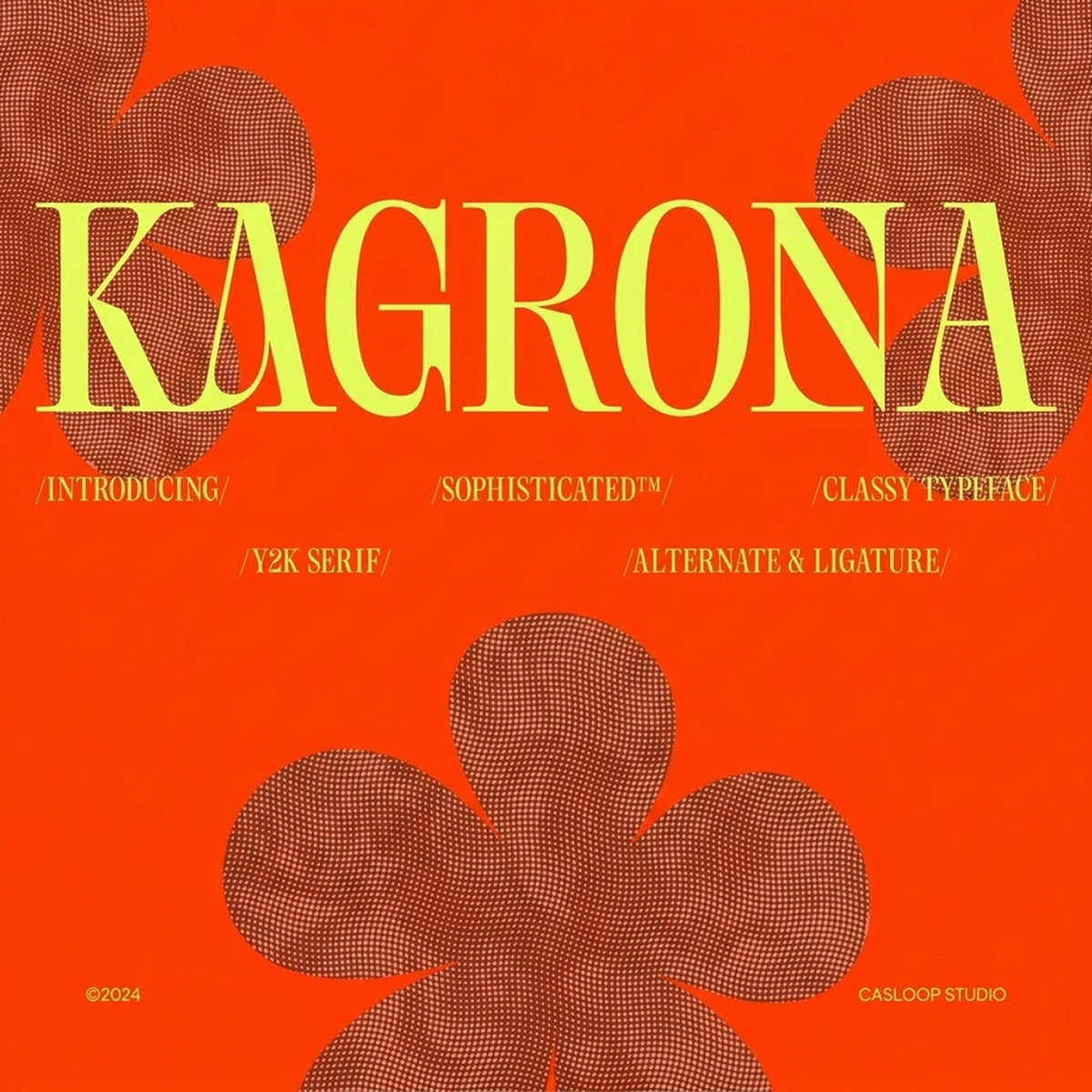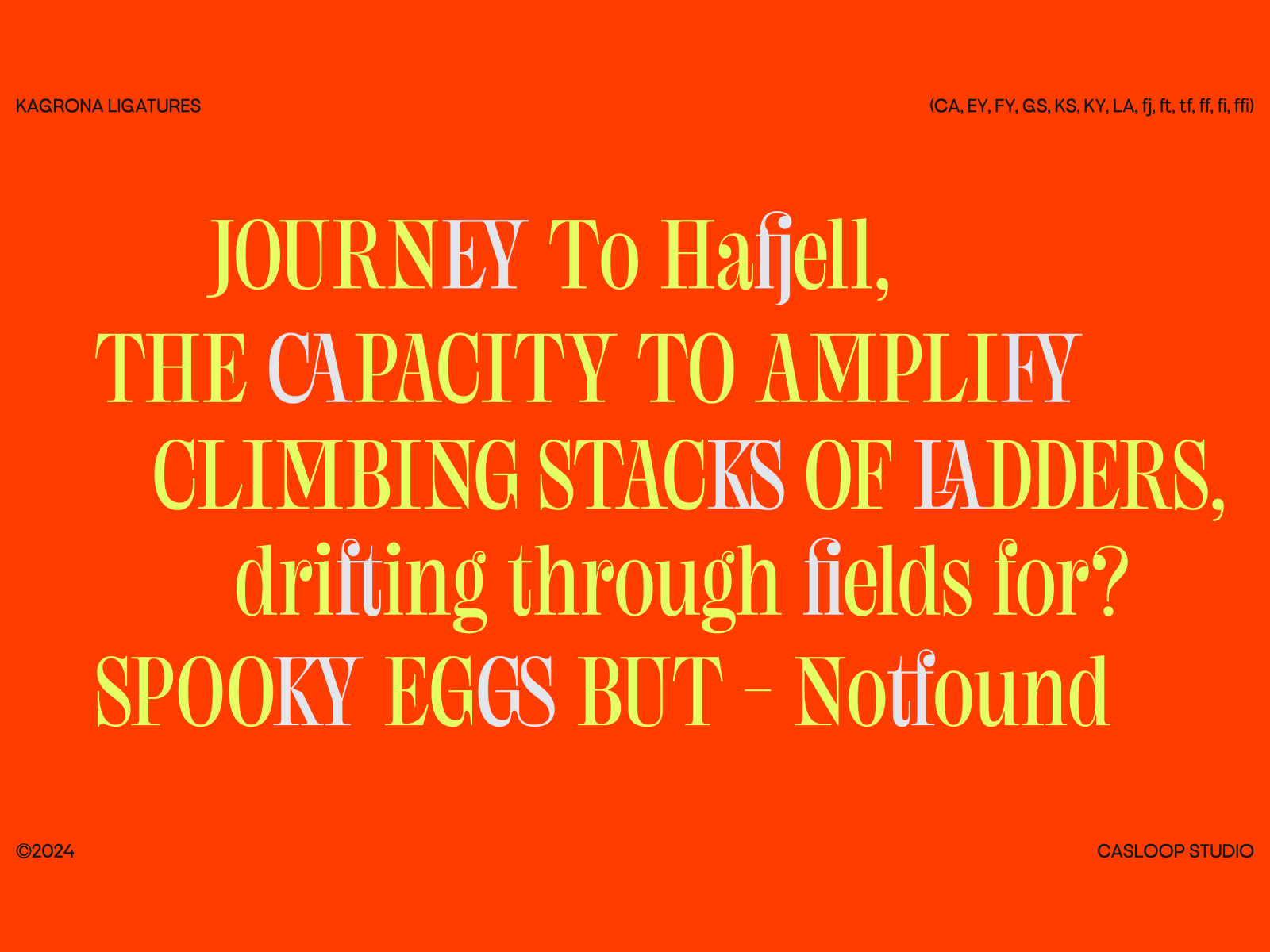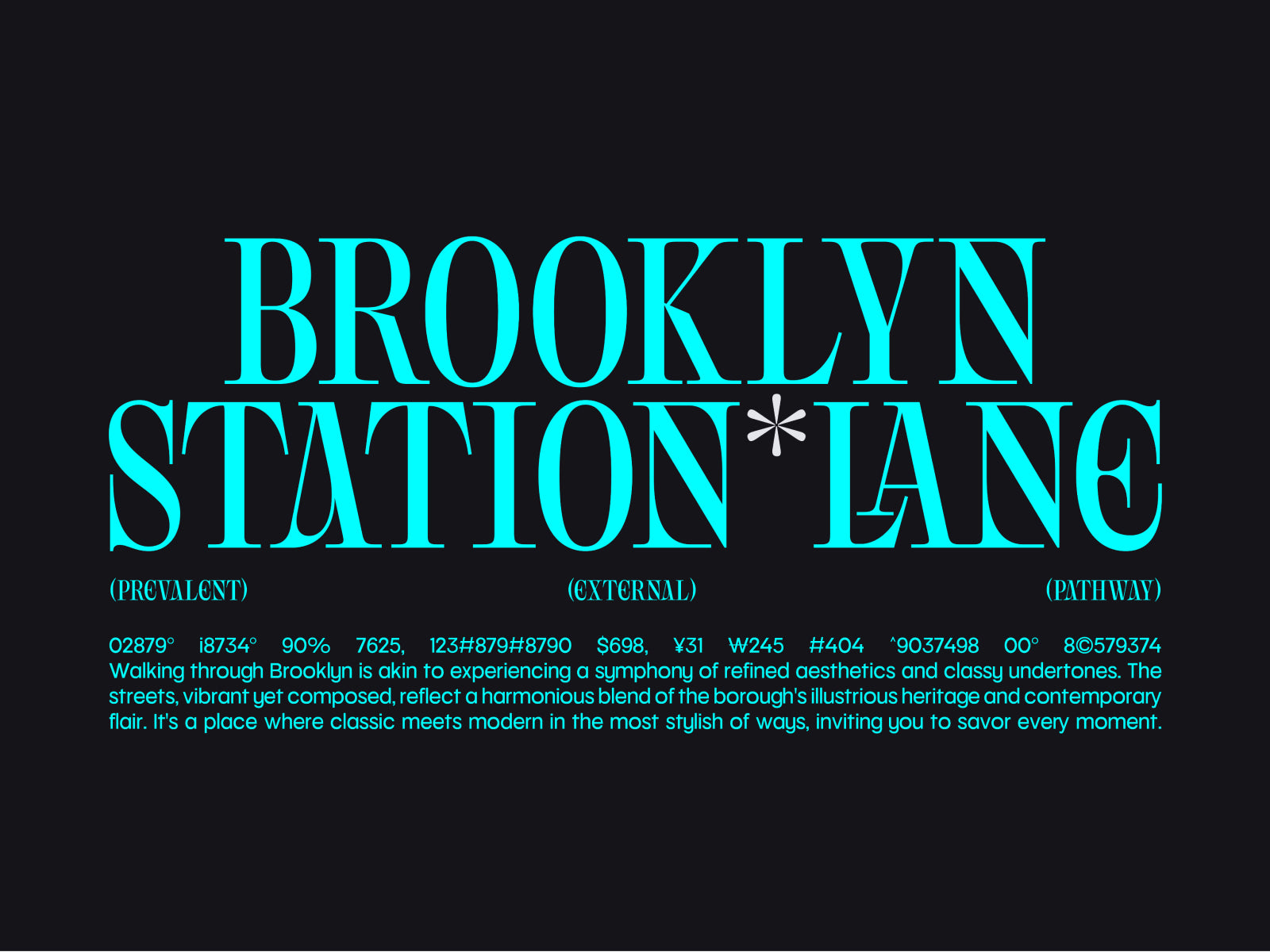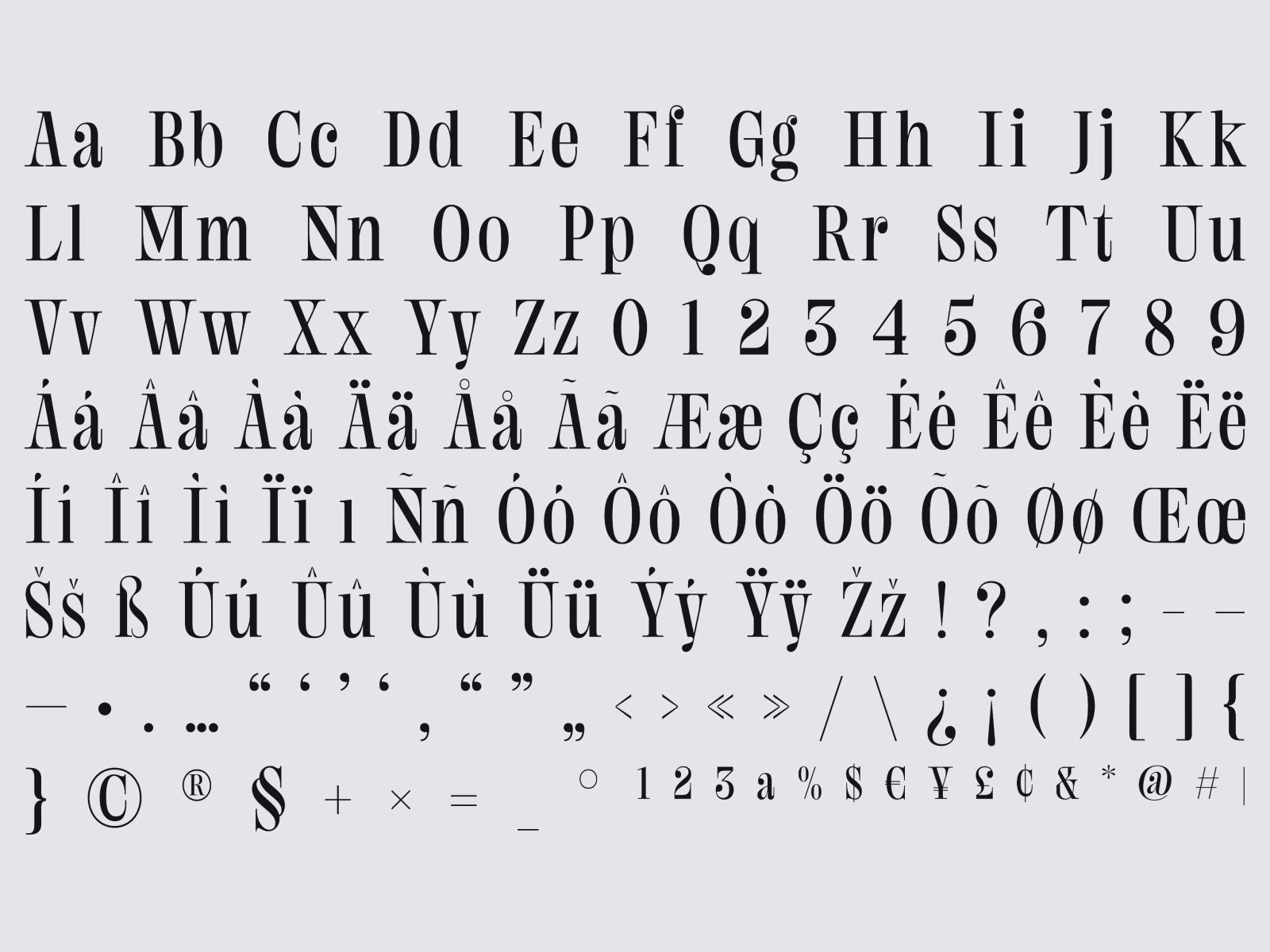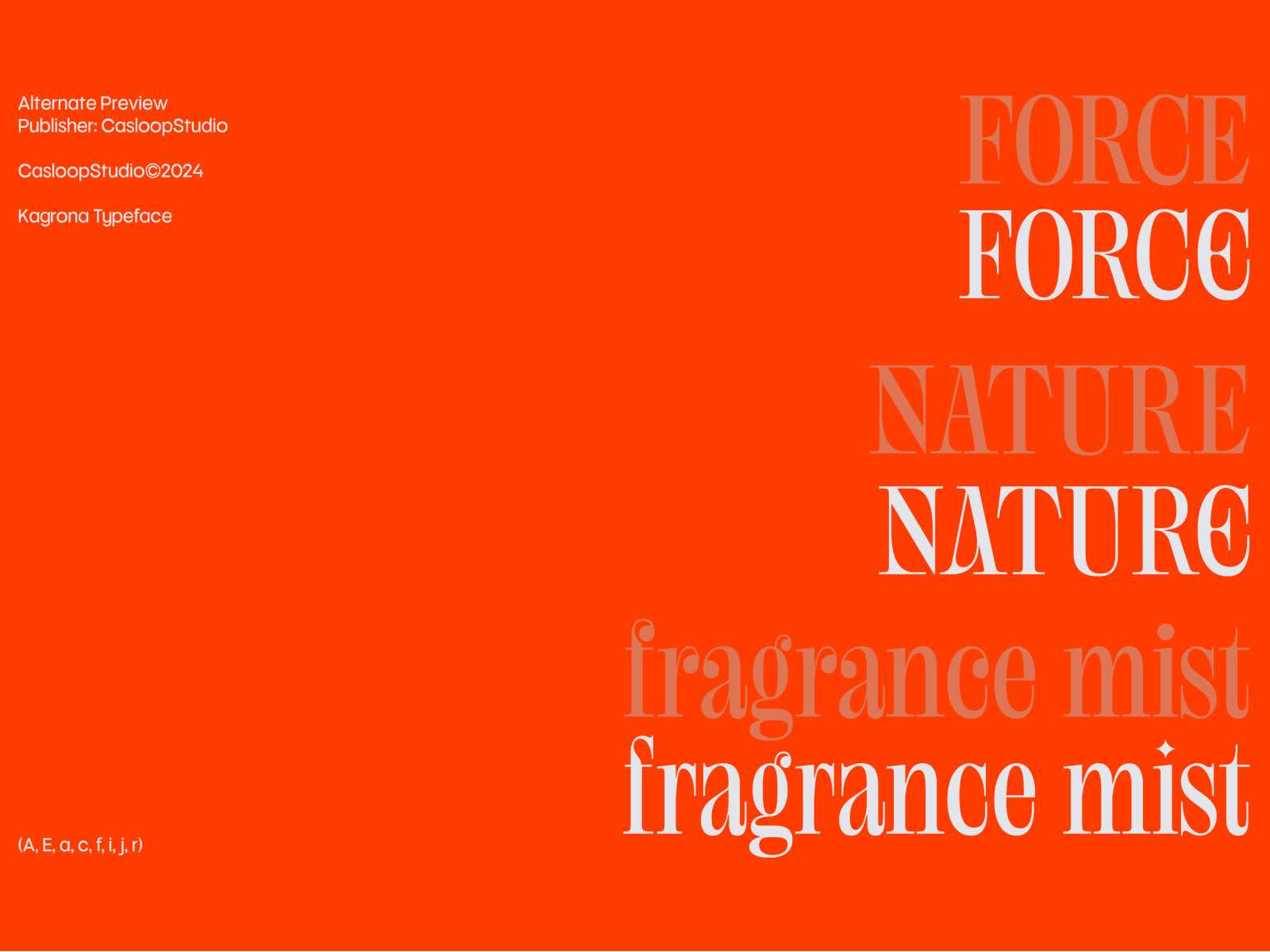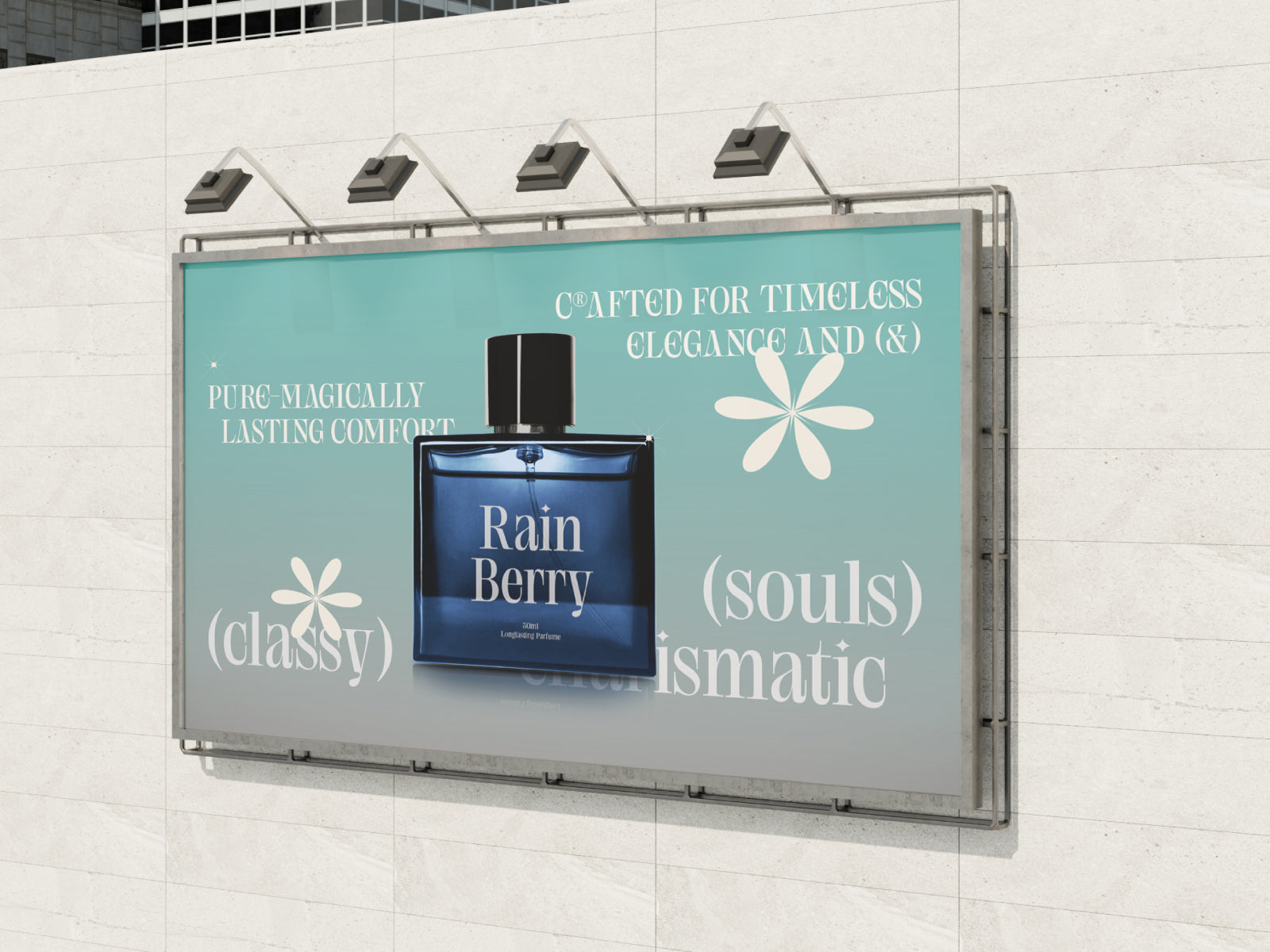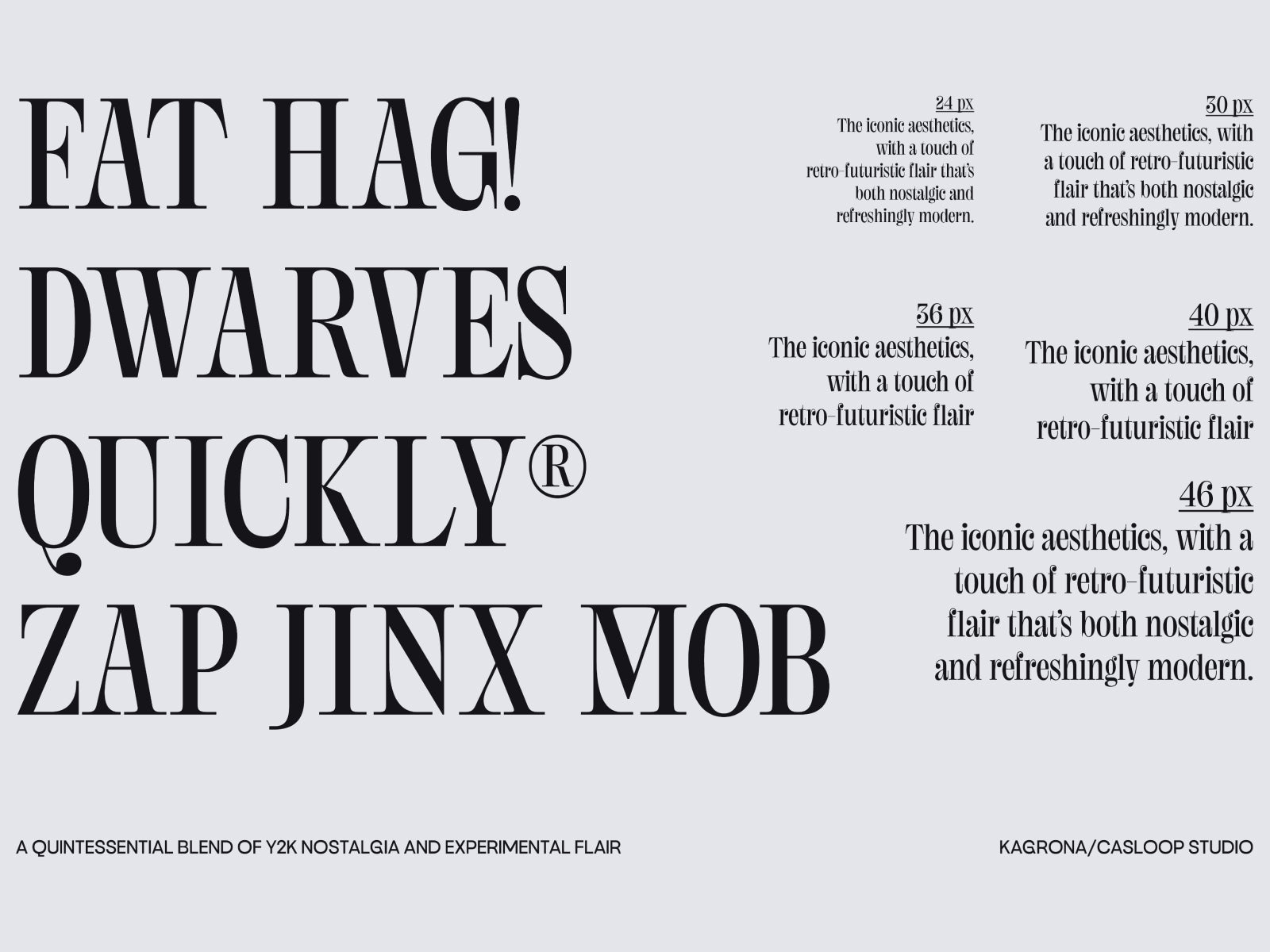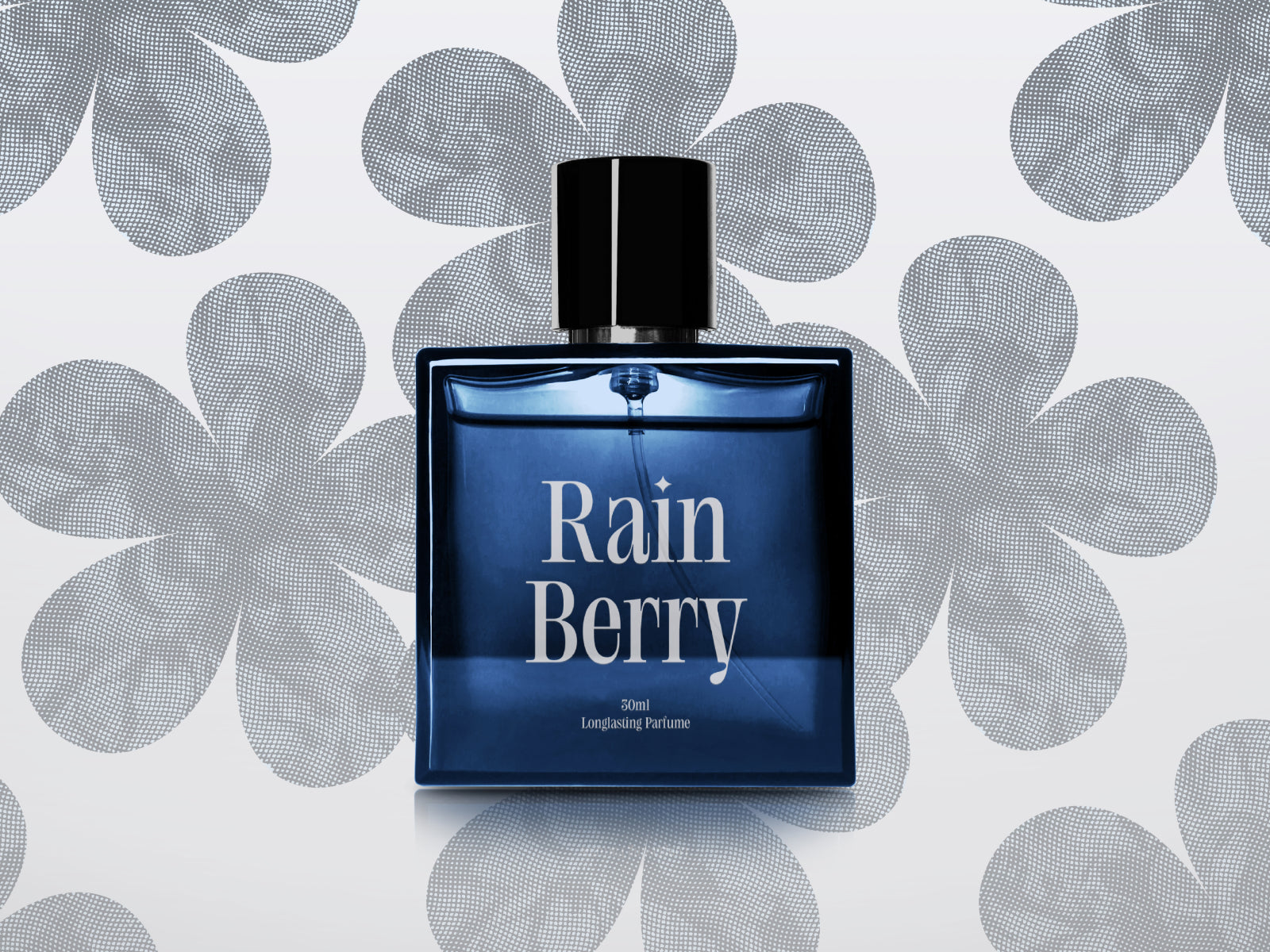
Kagrona - Experimental Font
Introducing Kagrona, a display serif font that effortlessly blends the nostalgic charm of Y2K aesthetics with contemporary elegance. Kagrona stands out with its unique experimental design, making it a perfect choice for both classic and modern projects.
Kagrona's superiority lies in its ability to evoke a sense of nostalgia while maintaining a classy and elegant appeal. This font is ideal for creating eye-catching posters, classy editorial layouts, and sophisticated branding materials. Its versatility makes it suitable for logos, digital media visuals, and website designs, bringing a touch of vintage allure to any project.
Key features of Kagrona include its Y2K-inspired design, which is perfect for headlines, retro themes, and vintage-style projects. Its contemporary yet classic look ensures it remains trendy and relevant, while its classy serif style adds a touch of sophistication.
Kagrona is an experimental display serif font that combines Y2K-inspired design with contemporary elegance. It features a unique aesthetic suitable for various projects and supports multiple languages, making it versatile for both classic and modern applications.